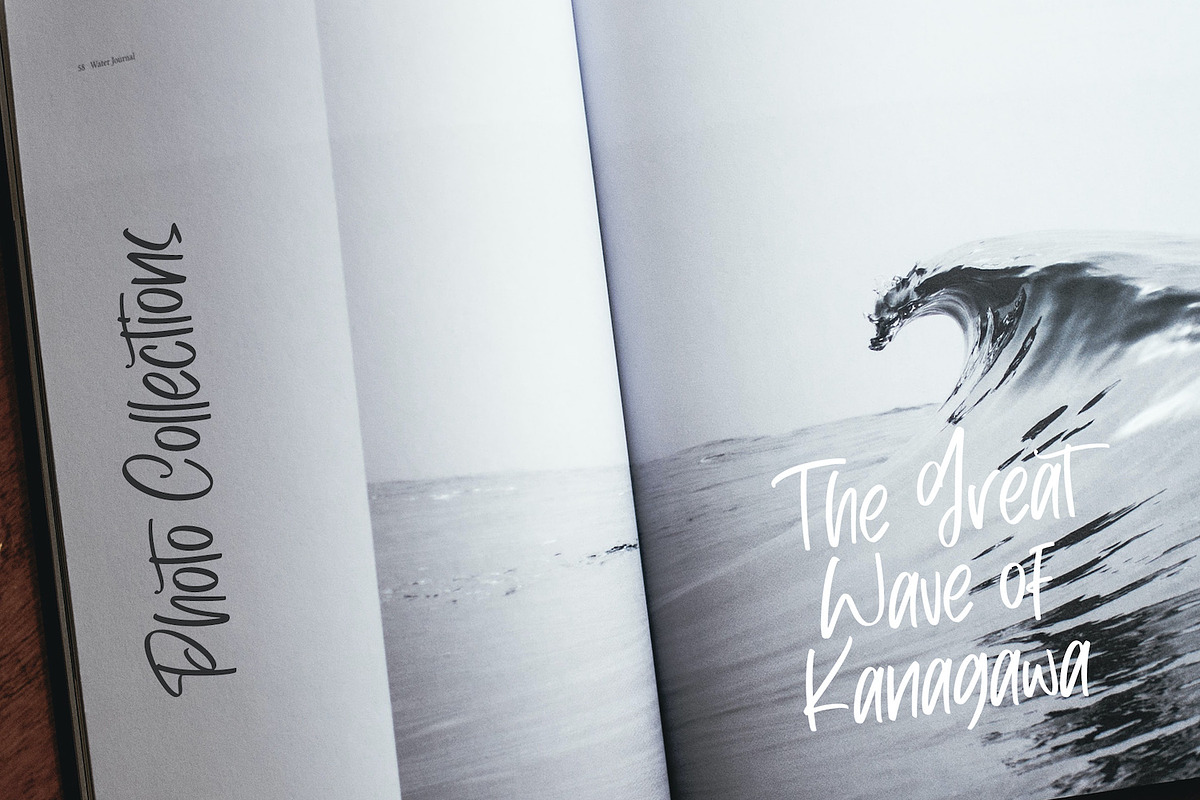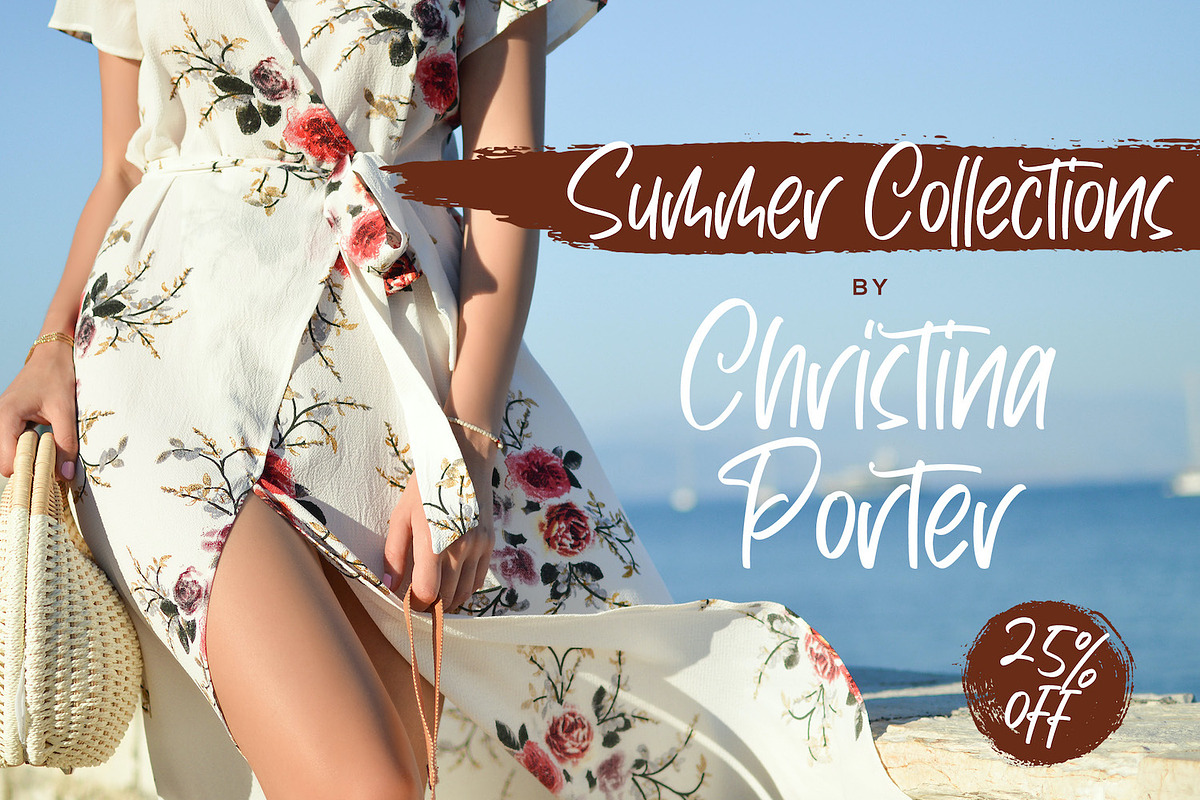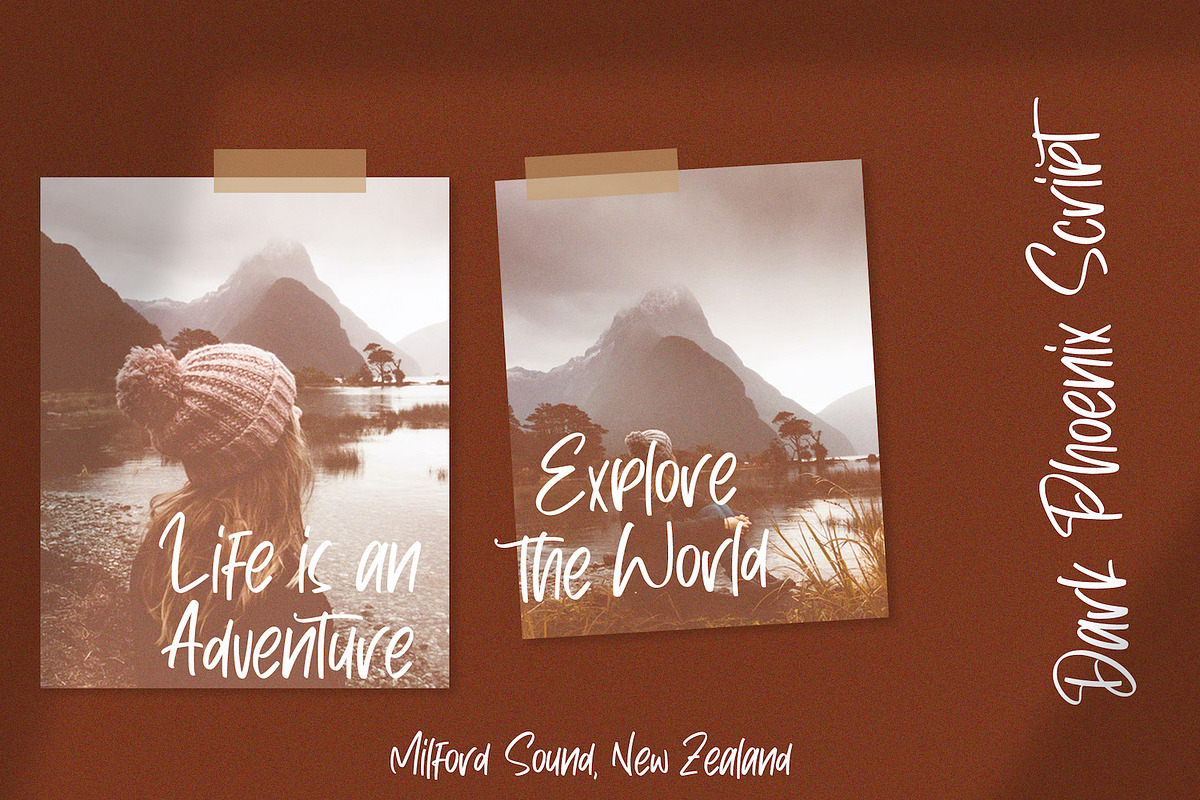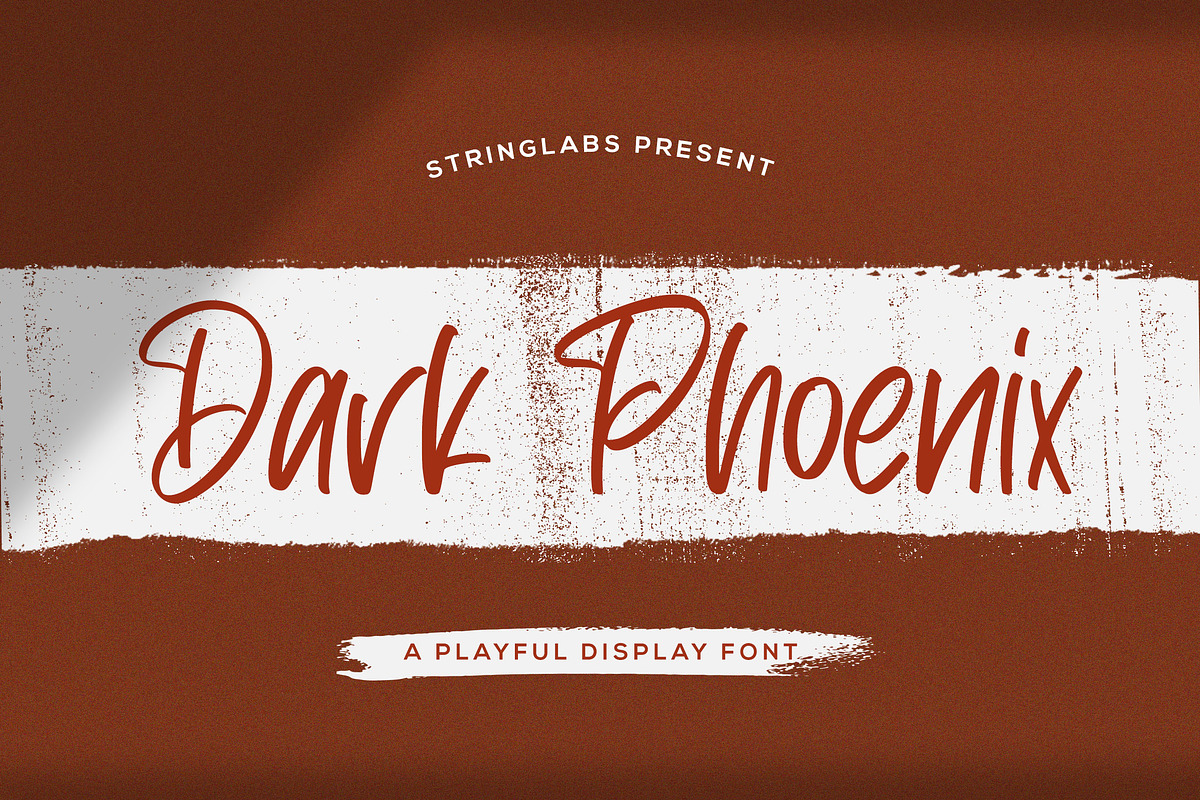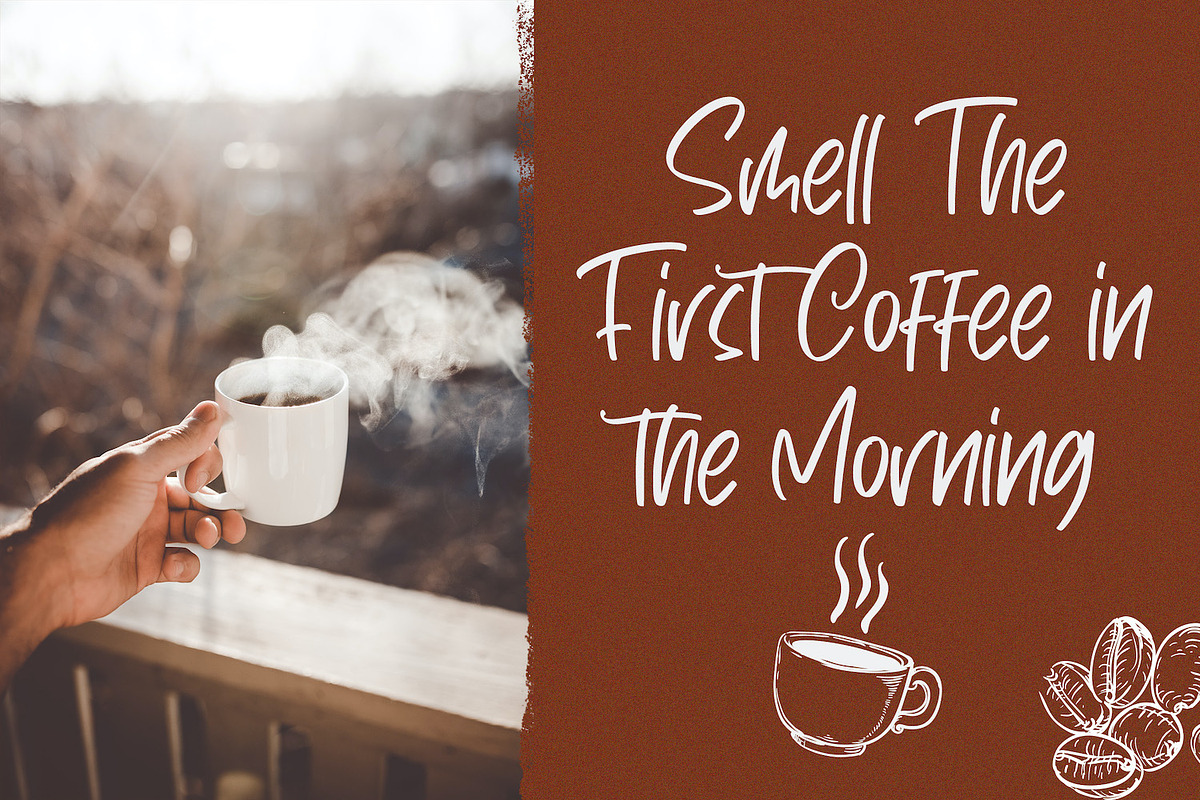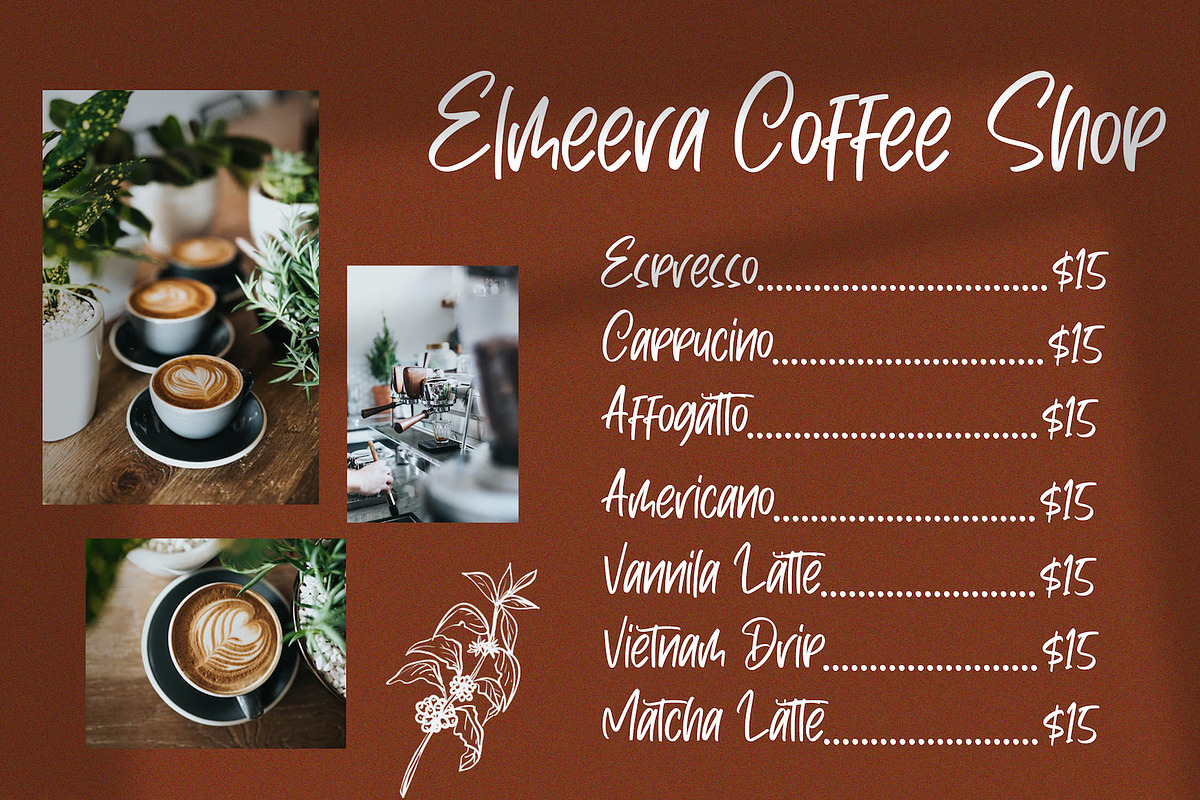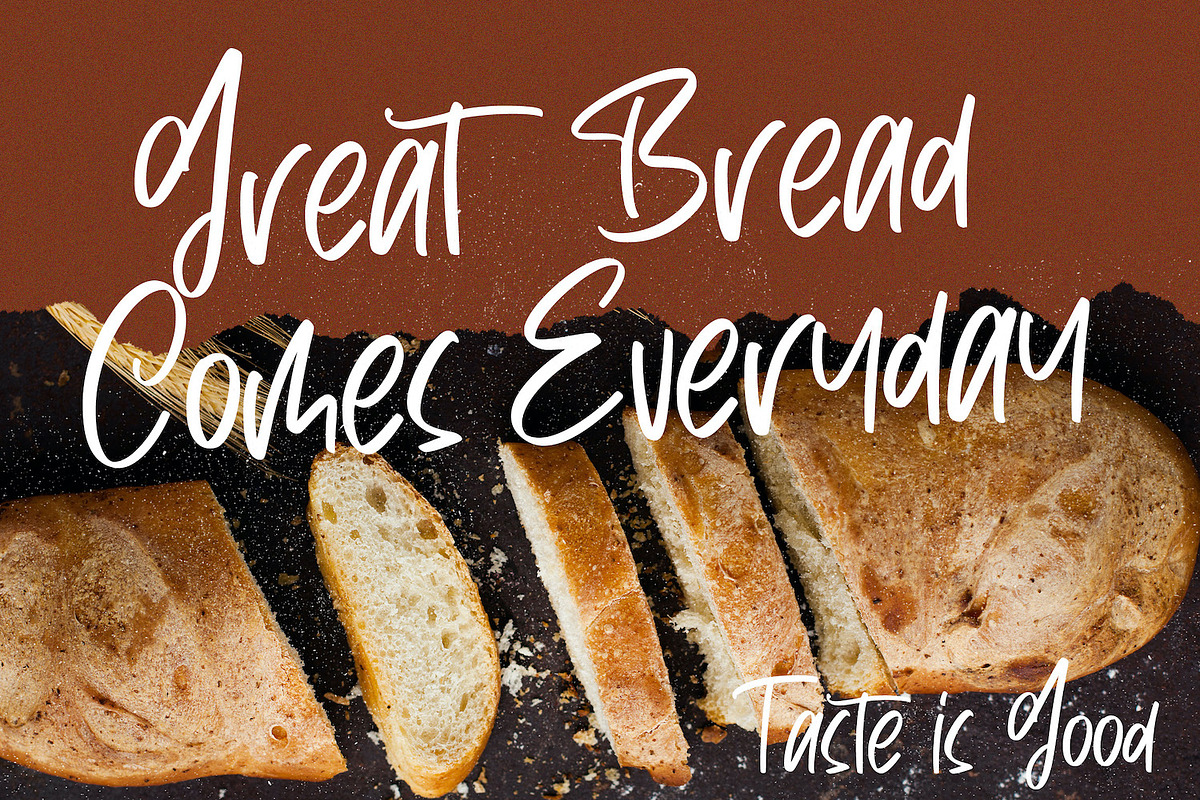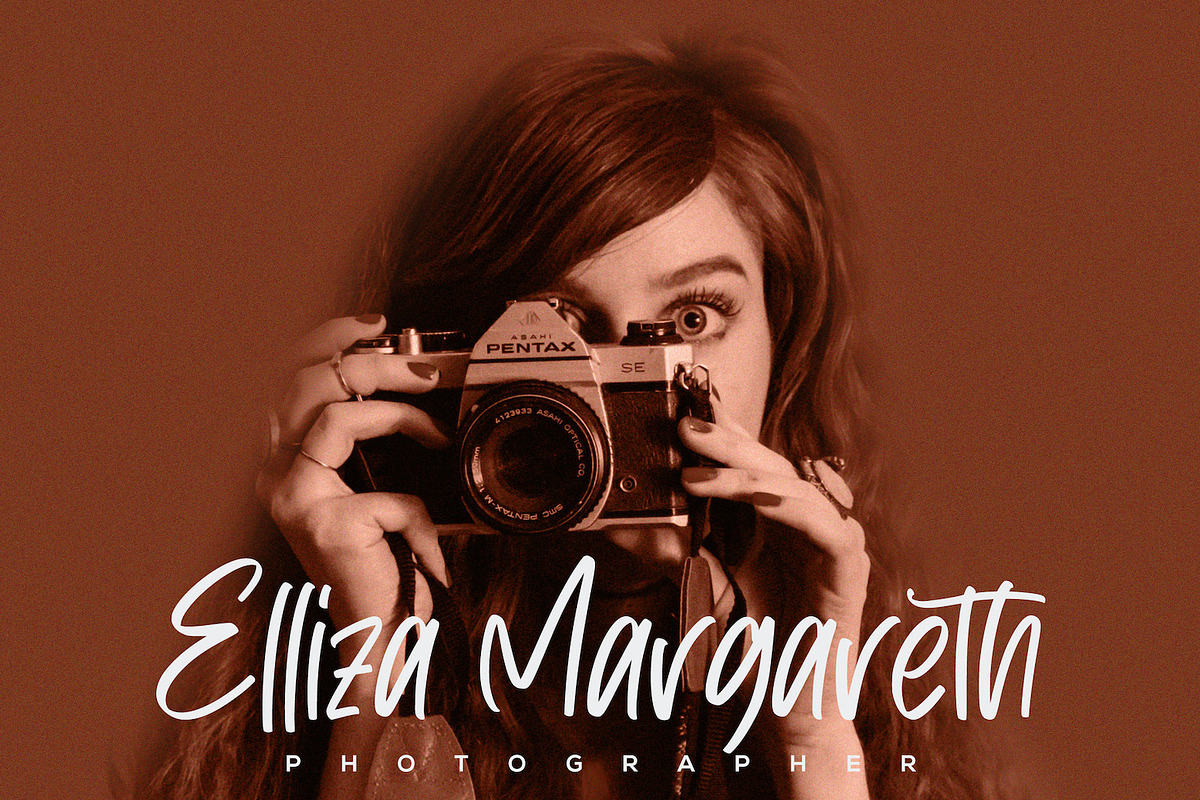
Dark Phoenix - Playful Display Font
Introducing Dark Phoenix - Playful Display Font
Dark Phoenix is a cute, playful, and quirky display font. Its friendly feel makes this font incredibly versatile, fitting a wide range of contexts. Add it to your creative ideas and notice how it makes them stand out!
Why Dark Phoenix - Playful Display Font is worth a look
Dark Phoenix - Playful Display Font by StringLabs fits naturally into Branding, posters, packaging, typography.